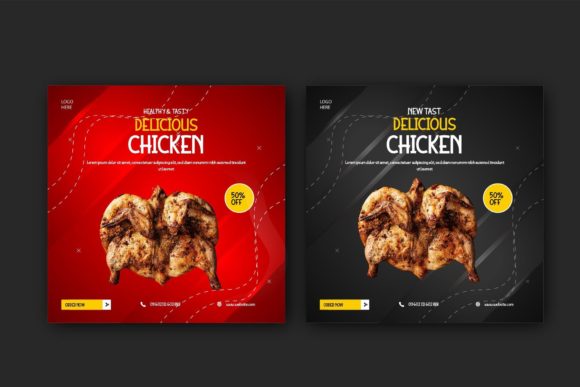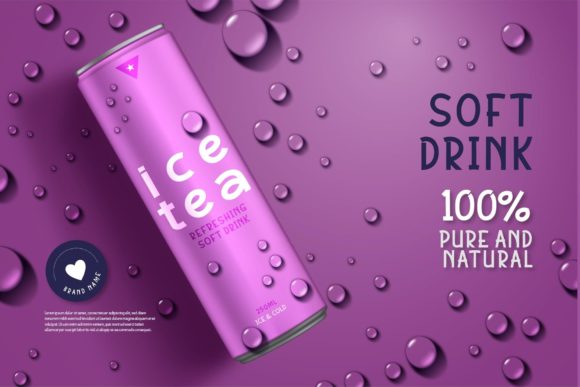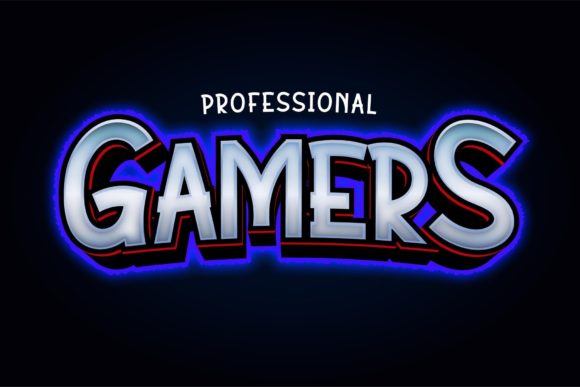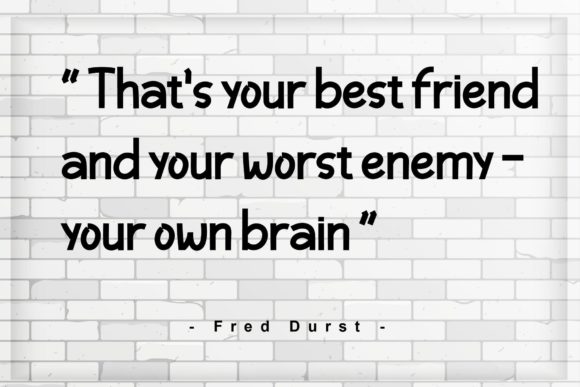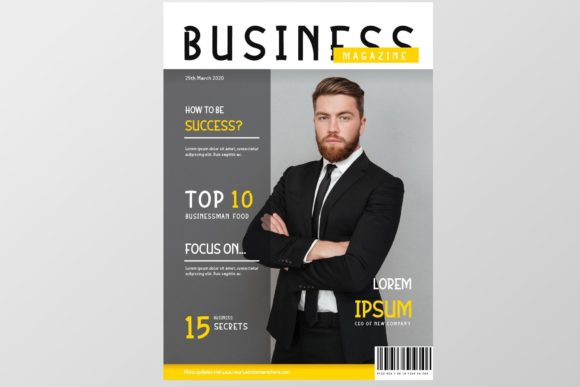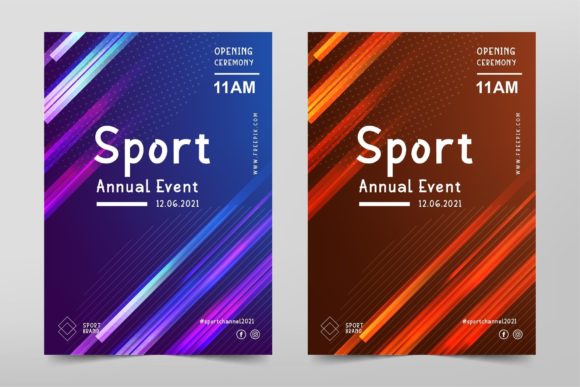
Introduction to Game Bost Font
Have you ever stared at a blank canvas, trying to conjure up the perfect font to bring your creative project to life? You know the feeling – the blank page staring back at you, taunting you to make a statement. That’s where the perfect font comes in, and we’re excited to introduce you to the Game Bost Font.
This display font is more than just a pretty face – it’s a game-changer. With its fine, proportional, and extremely clear design, Game Bost Font is the ultimate design resource for any project that needs a high-quality, eye-catching font. Whether you’re working on a logo, social media graphics, or even a presentation, Game Bost Font is sure to impress.
Key Features of Game Bost Font
- High-quality design for creative projects: The Game Bost Font is designed to meet the needs of designers and artists working on various creative projects, providing a unique and stylish look.
- Transparent background: The Game Bost Font features a transparent background, allowing designers to easily customize and combine it with other design elements.
- High-resolution design: The font is designed at a high resolution, making it suitable for use in a variety of creative projects, from print to digital media.
- Unique, bold design: The Game Bost Font features a bold, eye-catching design that is sure to make a statement in any creative project.
- Perfect for digital design: With its bold, modern design, the Game Bost Font is ideal for use in digital design projects, such as video games, mobile apps, and websites.
Honest Review: Game Bost Font
As a designer, I’m always on the lookout for high-quality fonts to enhance my creative projects. Recently, I came across the Game Bost Font, and I must say it’s a solid addition to my design resource library.
- ✨ Unique and bold design aesthetic that’s perfect for gaming-themed projects
- ✨ Comes with a transparent background, making it easy to layer and manipulate
One thing I appreciate about the Game Bost Font is its versatility. It’s not limited to just gaming projects; it can also be used for other creative endeavors where a bold, eye-catching font is needed.
- ⚠️ Limited number of styles and weights, which may not be ideal for designers who require a more extensive font family
- ⚠️ Some users may find the font too bold or overpowering, which could be a concern for more subtle design projects
Overall, I’m impressed with the Game Bost Font’s design and functionality. While it may not be perfect, it’s a valuable addition to any designer’s library, and I’d recommend it for anyone looking for a bold, free font to enhance their creative projects.
Common Use Cases for Game Bost Font
The Game Bost Font is perfect for a variety of creative projects, including graphic design, digital art, and even gaming design. Use the font to add a touch of personality to your designs, or as a design resource for a more professional look.
Is the Game Bost Font suitable for high-quality designs?
Yes, the Game Bost Font is designed to be a high-quality design resource. Its clean and modern design makes it perfect for use in a variety of creative projects, from logos and branding to digital products and print materials. The font’s high-quality design ensures that it will look great at any size or resolution.